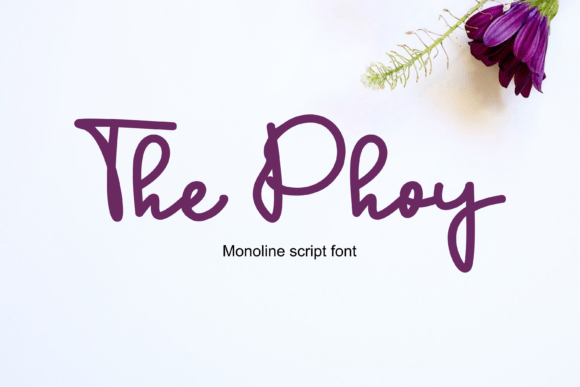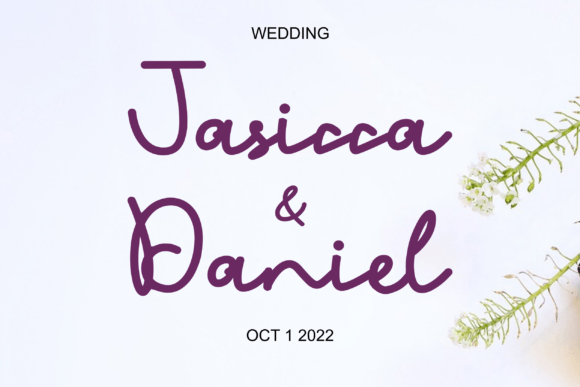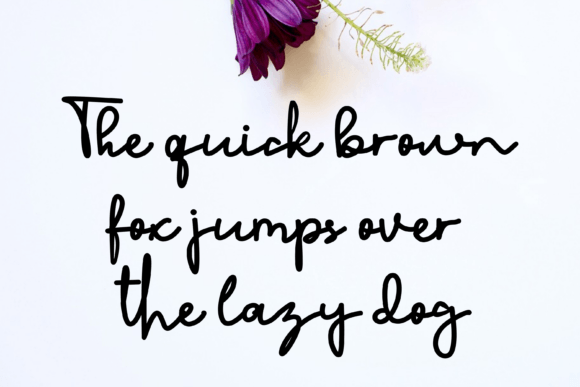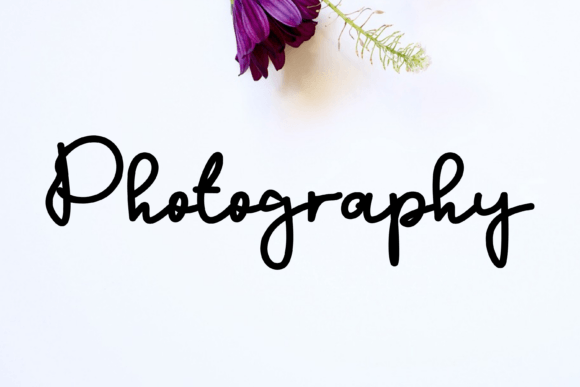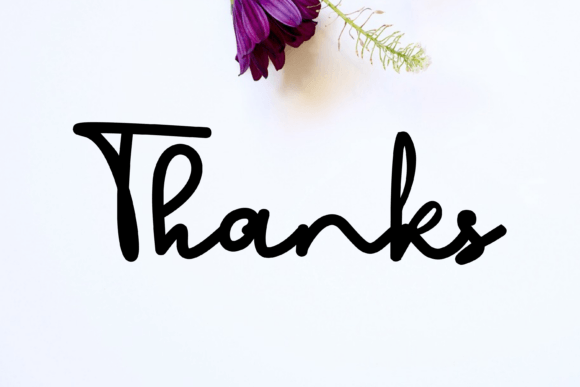
The Phoy Font
About The Phoy Font
**The Phoy – The Casual and Fresh Handwritten Font**
The Phoy is more than just a font; it’s a versatile tool for adding a casual and fresh touch to your creative projects. Here’s why The Phoy is the perfect choice:
1. **Casual Elegance:** The Phoy effortlessly combines a casual, handwritten style with a touch of elegance. It strikes the right balance, making it suitable for a wide range of design applications.
2. **Versatile Usage:** Whether you’re working on logos, branding, social media posts, invitations, or any other project, The Phoy fits seamlessly into various design contexts.
3. **Fresh Appeal:** The Phoy’s fresh and contemporary look helps your designs stand out. Its friendly and inviting style is perfect for projects that require a modern and approachable vibe.
4. **Unique Charm:** This font offers a unique charm that sets it apart from standard typefaces. It adds character and personality to your text, making it more engaging.
5. **Enhanced Creativity:** The Phoy sparks creativity and allows you to experiment with typography. Use it to create eye-catching headlines, quotes, or standout text elements.
6. **Attention-Grabbing Logos:** When used in logos and branding, The Phoy can help your brand identity feel approachable while maintaining a sense of professionalism.
7. **Social Media Posts:** Create visually appealing social media posts with The Phoy. Its friendly and casual look is perfect for capturing your audience’s attention.
8. **Invitations and Greeting Cards:** Design invitations, greeting cards, or thank you notes that convey a warm and welcoming message using The Phoy’s unique handwritten style.
9. **Artistic Freedom:** The Phoy provides the freedom to add a touch of artistry to your designs. Its organic, handcrafted appearance is ideal for artistic and creative projects.
10. **Readable Clarity:** While being casual, The Phoy maintains excellent readability. Your audience won’t struggle to read your message, ensuring effective communication.
11. **Youthful Energy:** The Phoy’s fresh and casual vibe is perfect for projects targeting a youthful or energetic audience. It can add a burst of life to your designs.
12. **Storytelling with Text:** Use The Phoy to tell a story with your text. Its handwritten feel can evoke emotions and create a personal connection with your audience.
13. **Craftsmanship:** The Phoy is crafted with precision and attention to detail. Every character is carefully designed to maintain consistency and quality.
14. **Memorable Branding:** For businesses, The Phoy can help create a memorable and approachable brand image that resonates with customers.
15. **Effortless Style:** Incorporate The Phoy effortlessly into your designs to achieve a stylish and modern look without the need for extensive customization.
The Phoy is not just a font; it’s a creative partner that empowers you to bring your ideas to life. Its casual elegance, fresh appeal, and versatile usage make it a valuable asset for designers and creators. With The Phoy, your projects will exude a unique charm that captivates your audience.